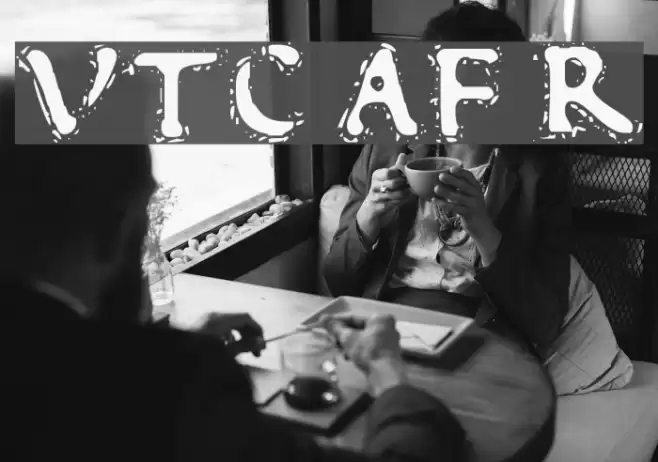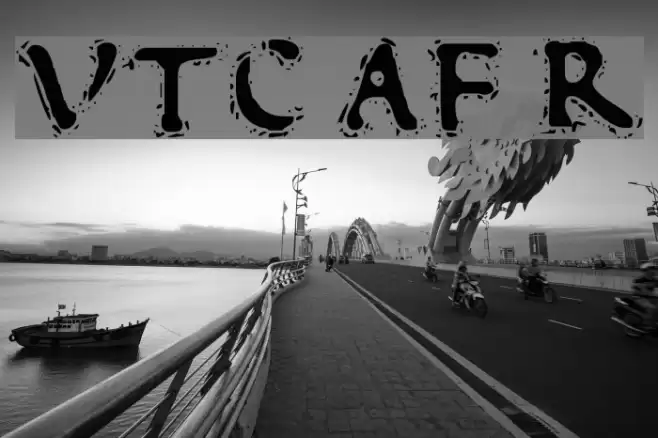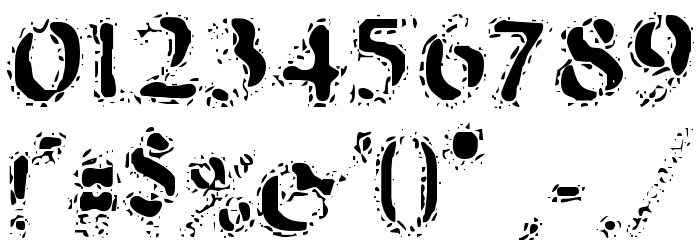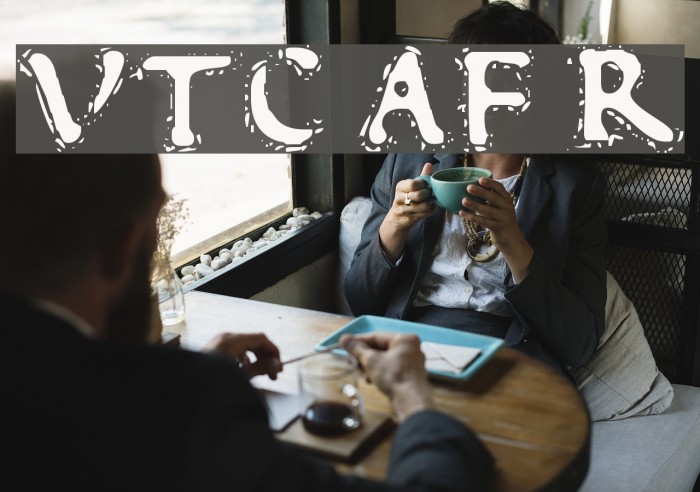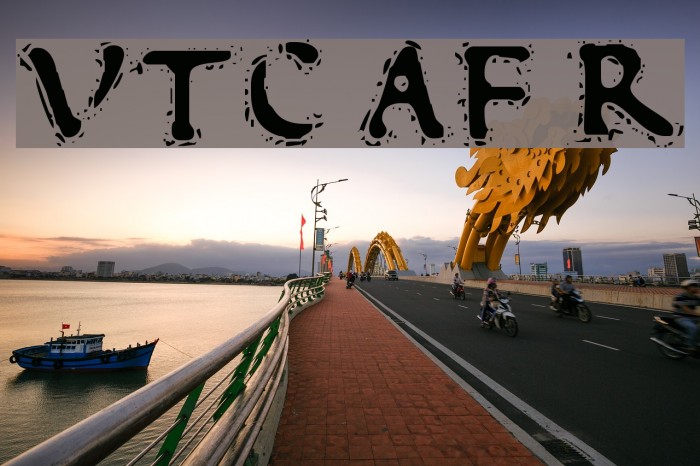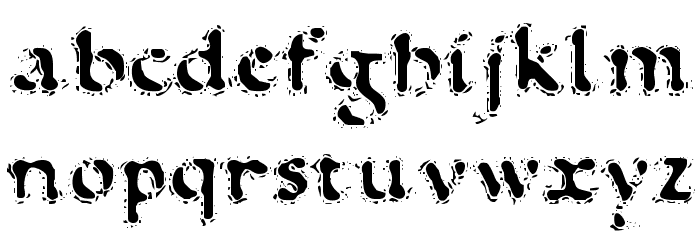
VTC AntiqueFizz Reguar Font
VTC AntiqueFizz Reguar Description
This font features a distinctive, distressed style with a vintage flair. Each character appears as if it has been weathered over time, giving it a unique, textured look. The uppercase letters are bold and commanding, while the lowercase letters maintain a consistent style with slightly softer edges. Numbers and special characters follow the same aesthetic, ensuring a cohesive appearance across all text. The font's irregular outlines and rough edges make it stand out, adding a touch of antiquity and character to any design.
A distressed, vintage-style font with textured, weathered characters from Decorative fonts.
- Proposed Projects: Ideal for projects requiring a vintage or antique feel, such as posters, book covers, or branding for rustic-themed businesses.
- Overall Style: Vintage